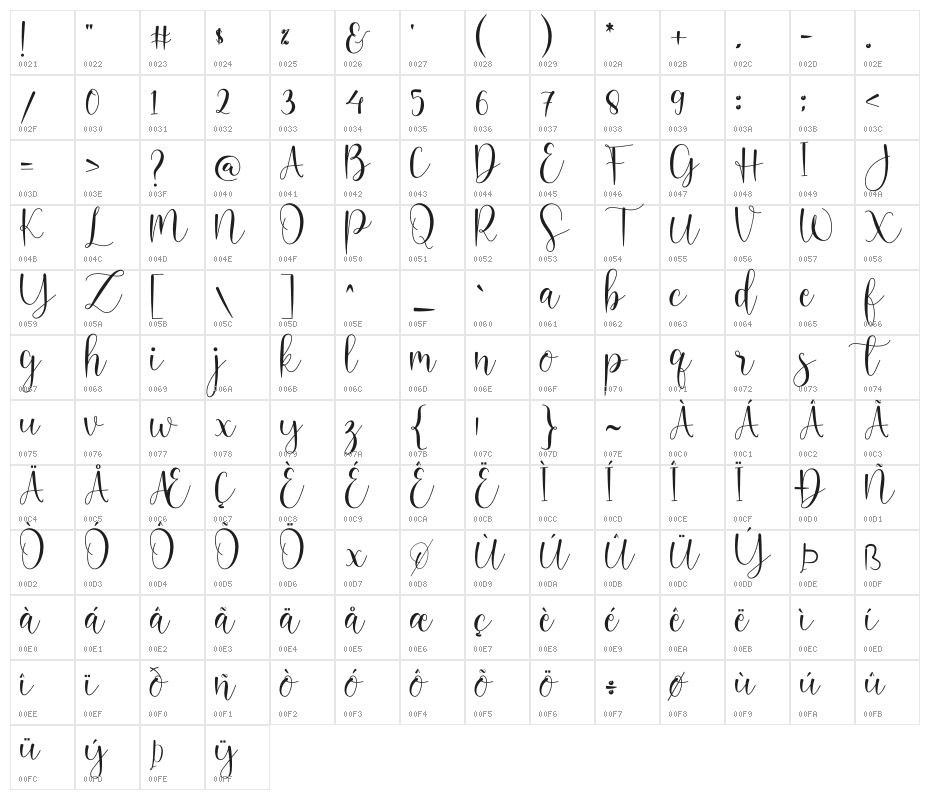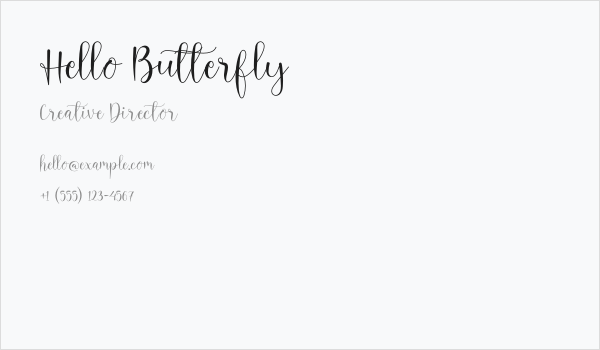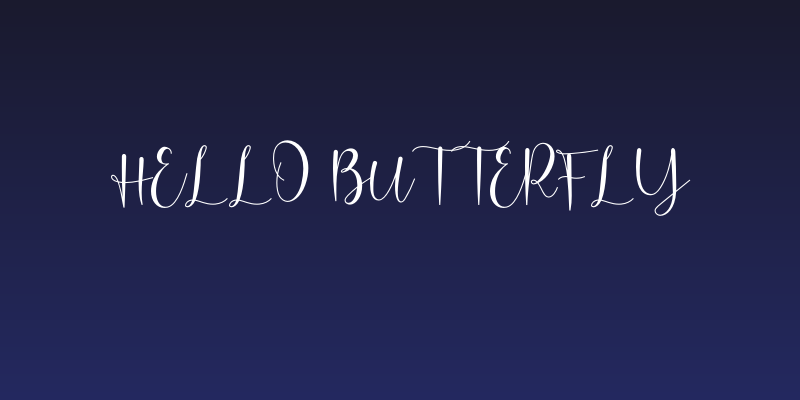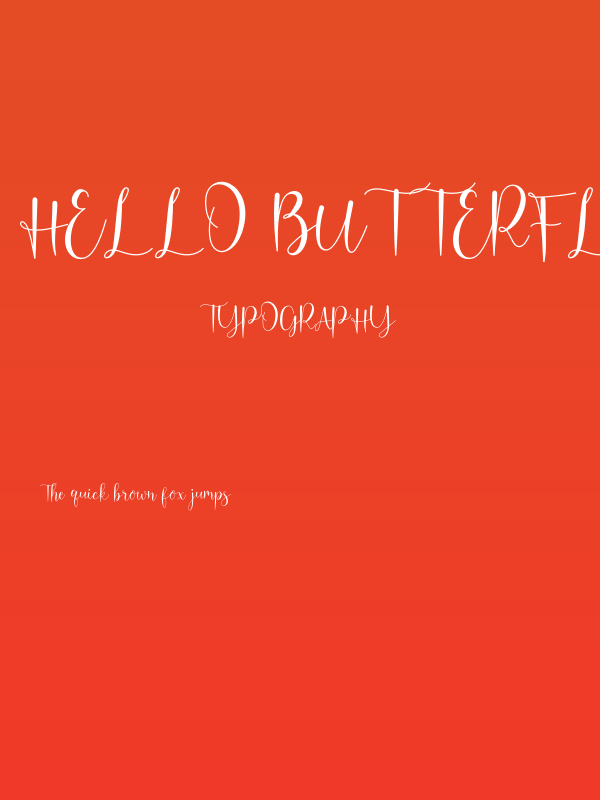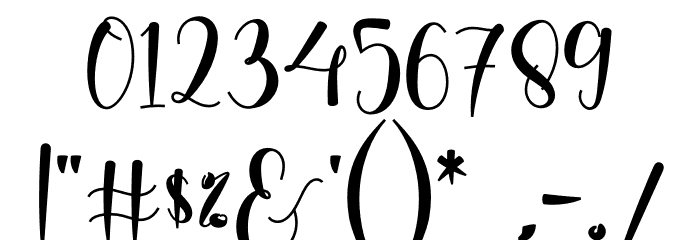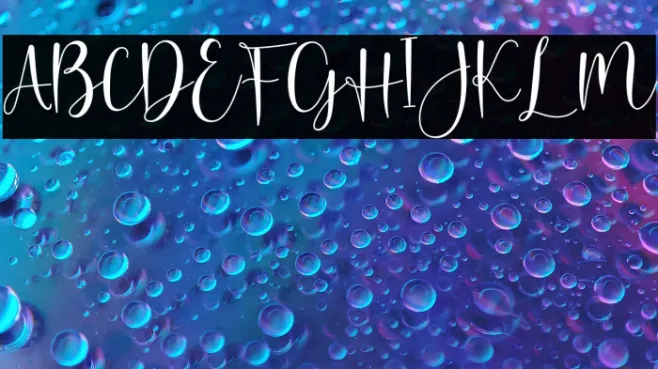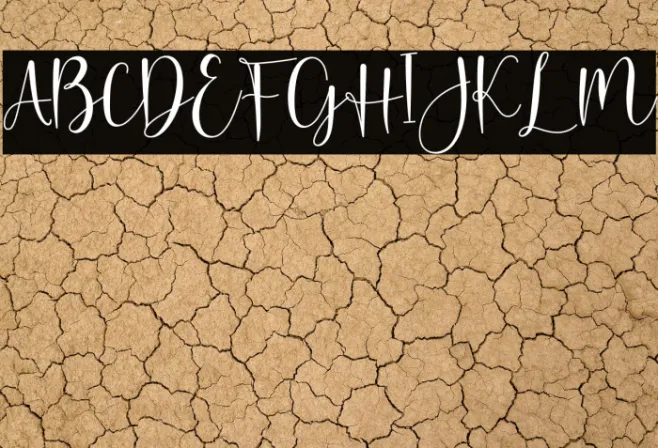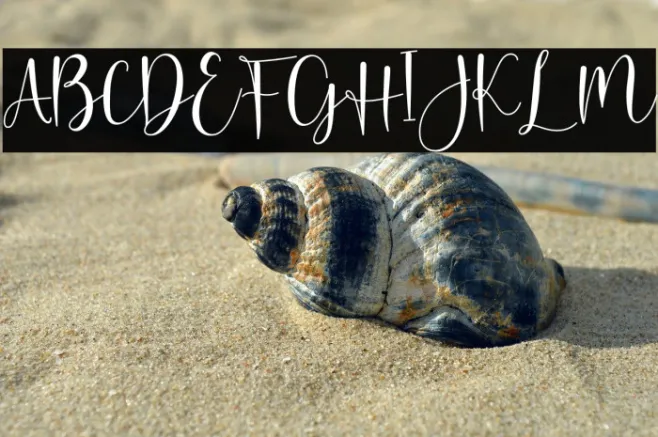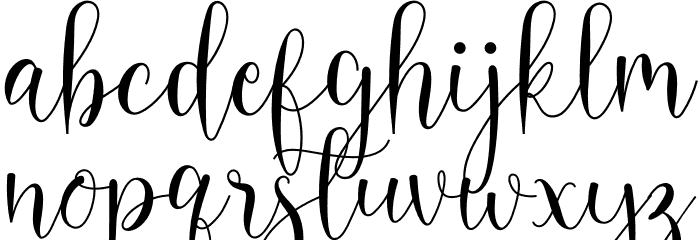
Hello Butterfly Font
Hello Butterfly Description
This font features a whimsical and flowing script style, characterized by its elegant and fluid letterforms. The uppercase letters are tall and slender, with graceful loops and swirls that add a touch of sophistication. The lowercase letters maintain a consistent flow, with smooth connections between each character, creating a harmonious and cohesive look. The numerals are distinct and stylish, complementing the overall aesthetic. Special characters are thoughtfully designed, maintaining the font's playful yet refined nature. This font exudes a sense of creativity and elegance, making it ideal for projects that require a personal and artistic touch.